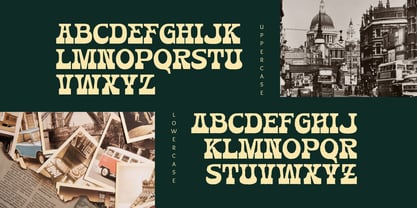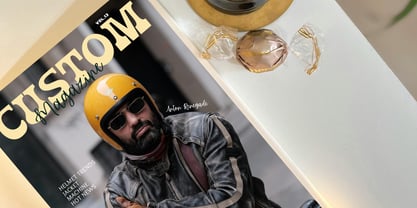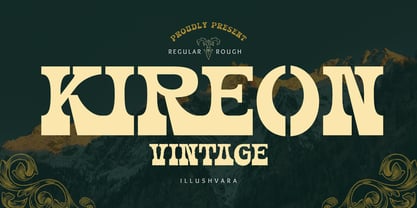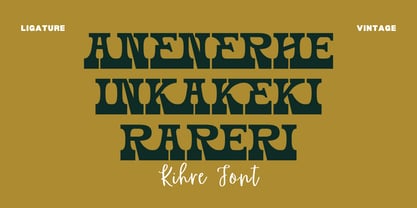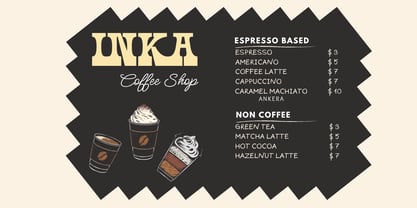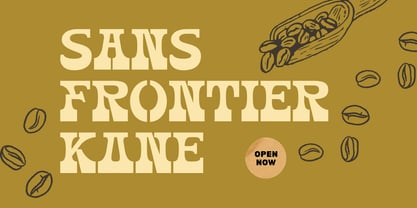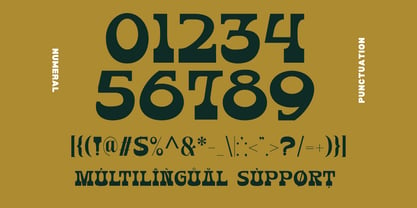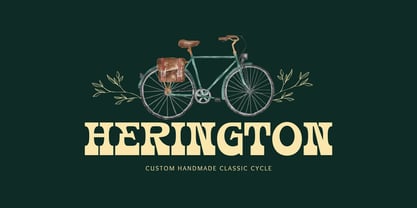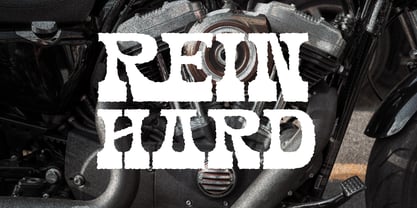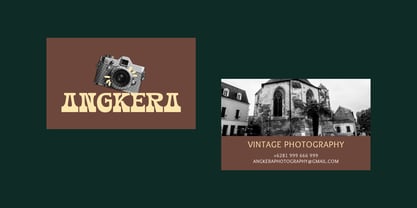
Kireon
by Illushvara
The Kireon Font Family was designed by Bayu Suwirya and published by Illushvara. Kireon contains 2 styles and family package options. More about this family
Kireon is a bold vintage display serif inspired by classic western typography, retro signage, and timeless craftsmanship. Designed with strong curves, chunky letterforms, and distinctive stencil-style cutouts, it delivers a rugged yet elegant personality. Perfect for logos, branding, coffee shops, restaurants, labels, motorcycle clubs, packaging, posters, editorial headlines, and nostalgic products. Kireon brings authentic vintage charm while remaining highly legible across print and digital projects. Whether you’re creating rustic branding or bold retro designs, this typeface adds a powerful classic statement with unforgettable character.